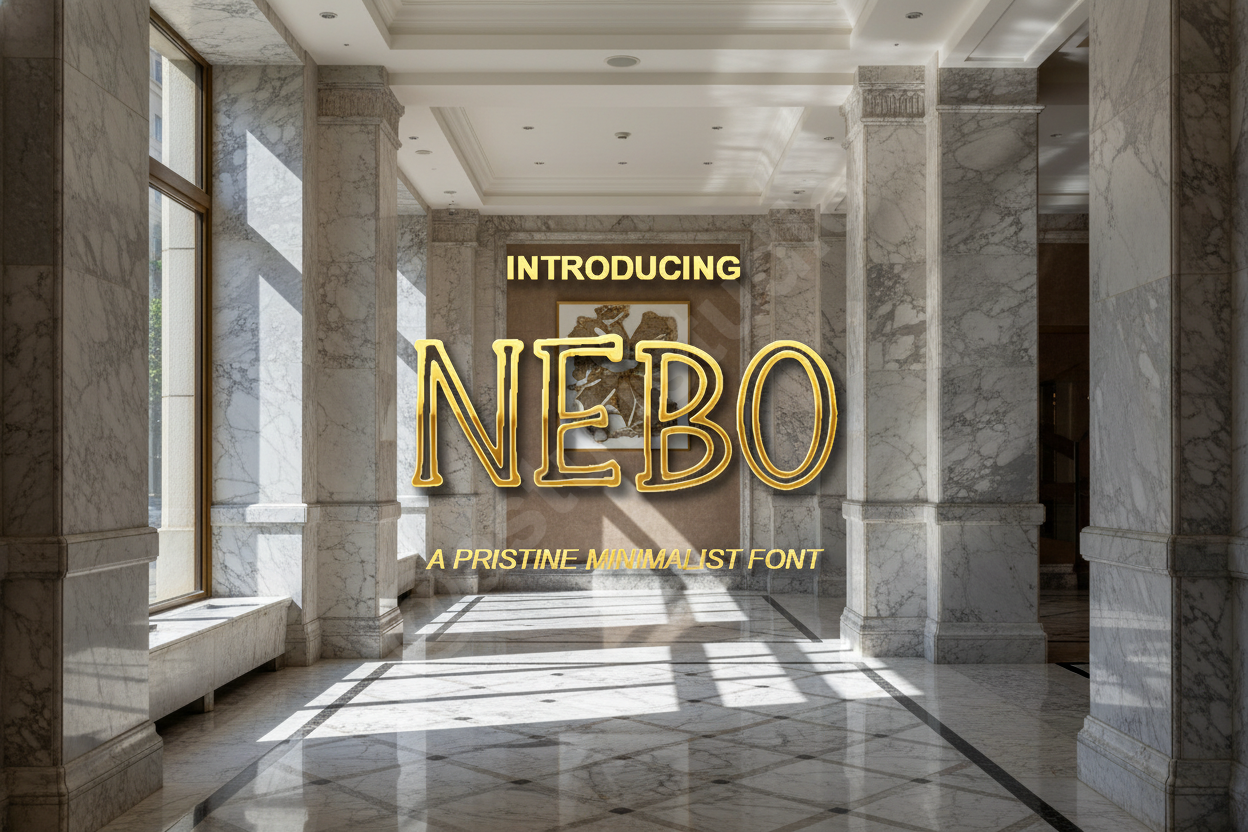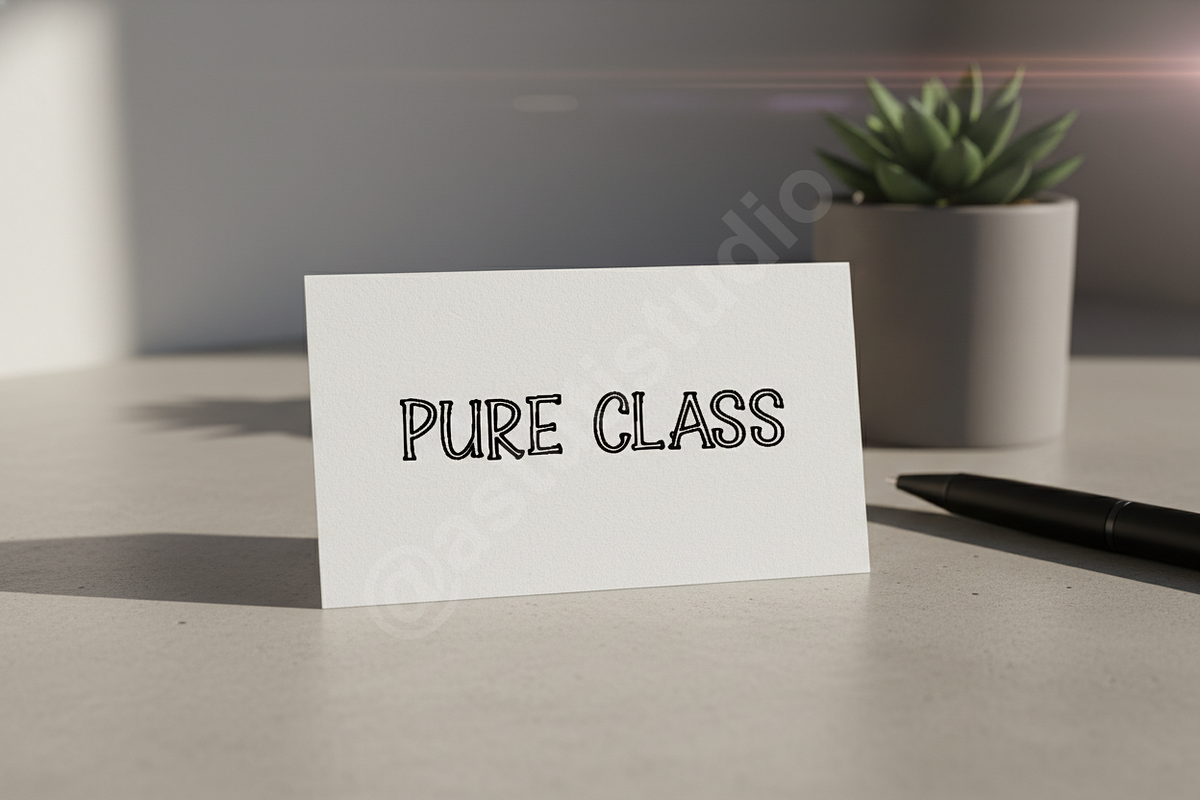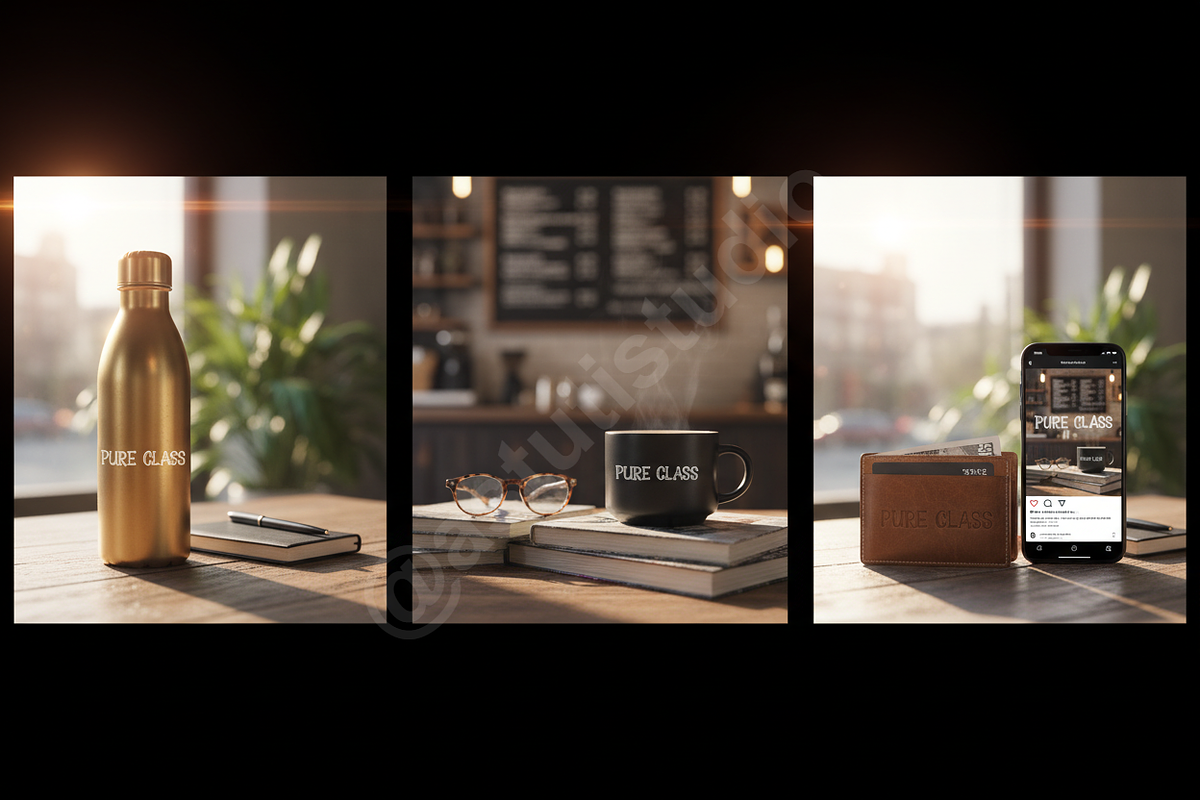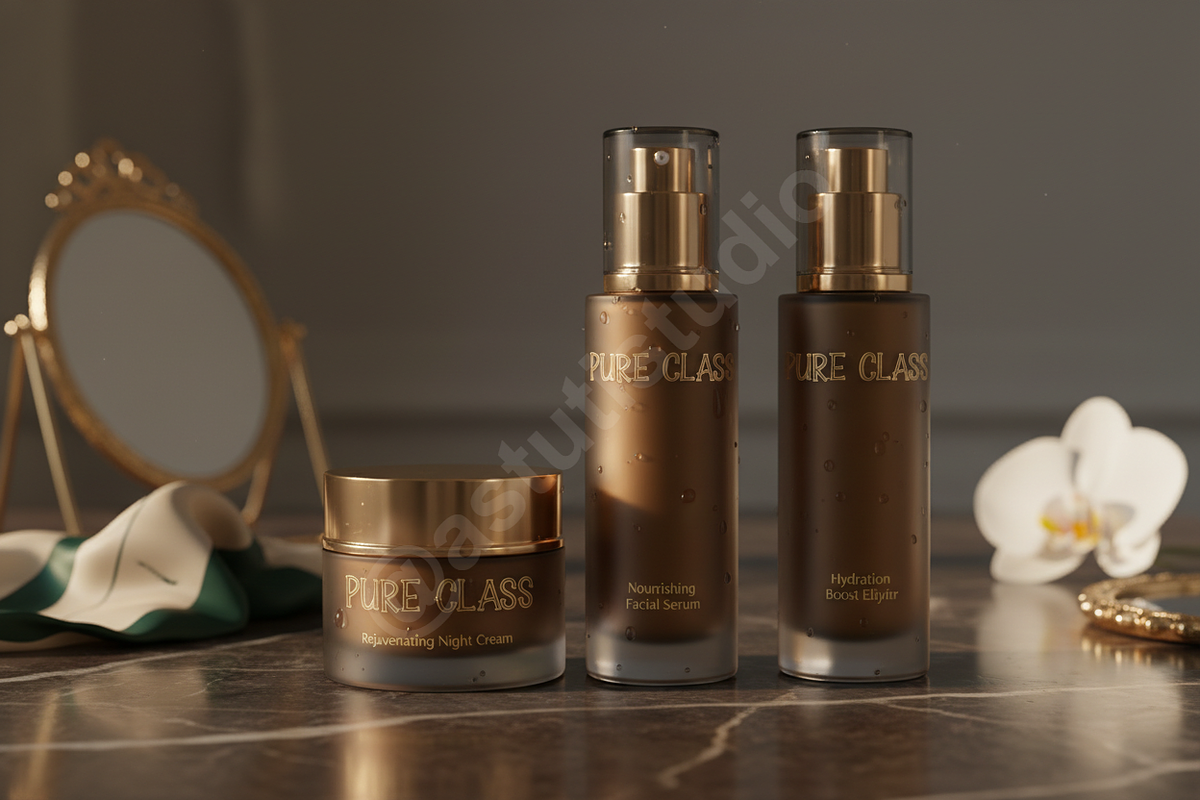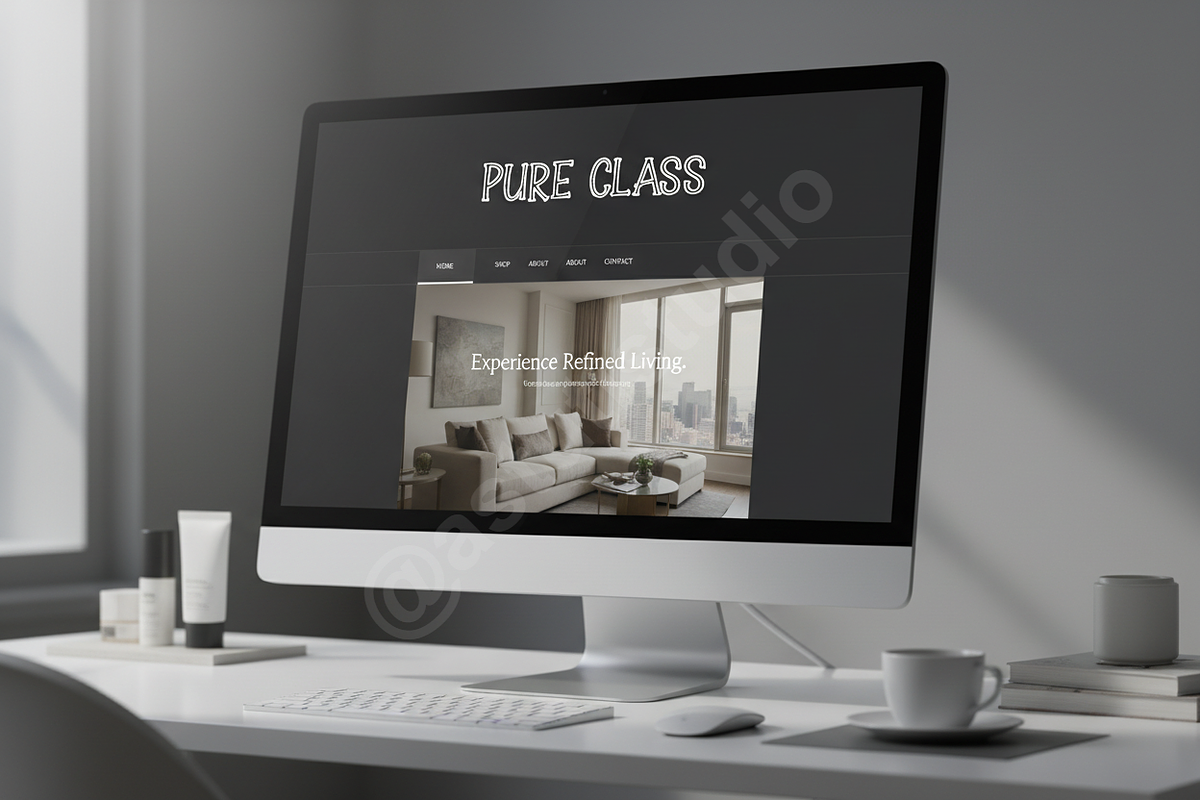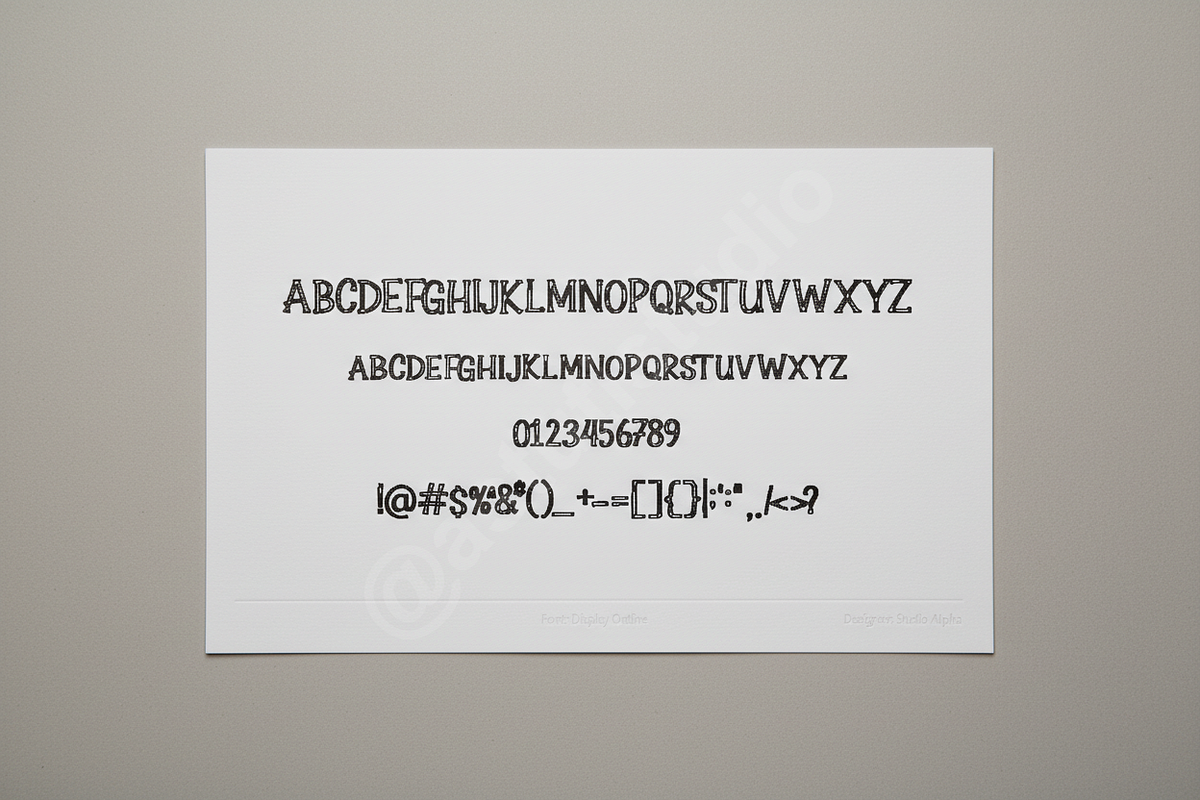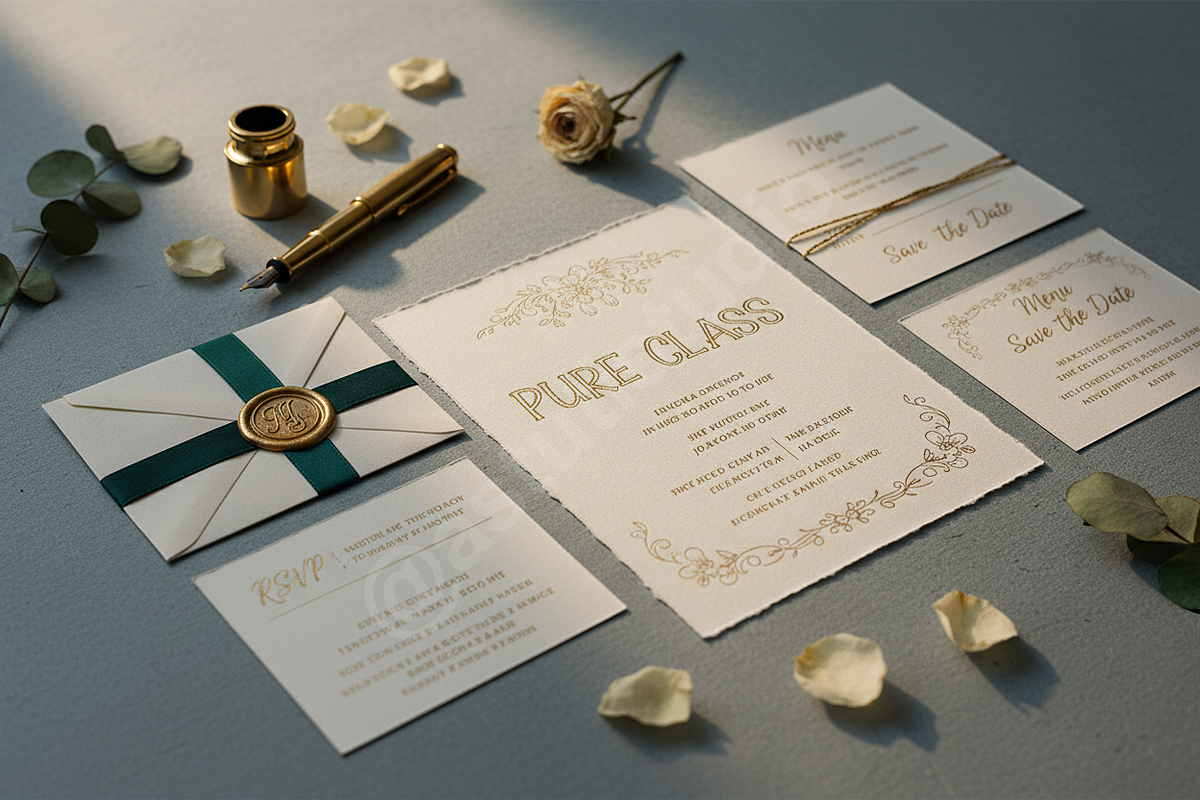
Nebo - Elegant Modern Serif Typeface
Nebo | A Timeless Luxury Serif
Introduction Nebo is a premium serif typeface meticulously crafted for high-end aesthetics and sophisticated branding. Drawing inspiration from classic editorial design, Nebo combines sharp serifs with graceful curves to create a look that is both modern and everlasting. Whether you are designing a high-fashion magazine or a minimalist logo, Nebo provides a refined touch to your creative palette, making it the ideal choice for designers seeking professional excellence.
- Elegant, high-contrast character design for a premium feel
- Perfect for luxury branding, editorial layouts, and high-end social media
- Balanced kerning and spacing for optimal readability
- Comprehensive multilingual support for global creative projects
- Versatile performance across both digital platforms and print media
- Complete character set including uppercase, lowercase, numbers, and punctuation